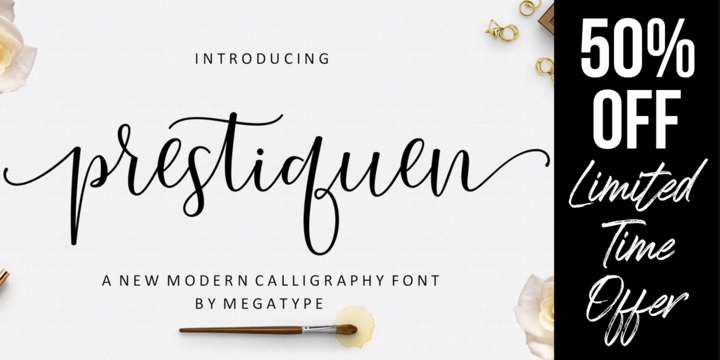
Creativefabrica Prestiquen Script Font Free Download PNG. Dear visitor, you went to the site as unregistered user. Licensed for personal and commercial use. Introducing our fashionable handwritten, prestige script free for personal use. In all formats (prestiquen script woff2, prestiquen script woff, prestiquen script ttf, prestiquen script eot). Free download prestiquen script for macos, windows, sketch, figma, photoshop and web site. The free version provides all uppercase and lowercase letters and a few special characters too. 266,635 downloads (110 yesterday) demo. Suitable for any modern design. Download the prestige signature script font by fontsgood. Download 10,000 fonts with one click for $19.95. Introducing our fashionable handwritten, prestige script free for personal use. Suitable for any modern design. Aktiv grotesk font family free download. Prestige signature script is a high quality handwritten font that is designed by fontsgood and is available for free download and personal use. The world's best free ux&ui resource site, you can download the free mockup, wireframe kits, ui kits, fonts, icons, logo, presentation, theme, templates, textures, backgrounds and more here.
Aktiv grotesk font family free download. Prestiquen script is a beautiful and modern calligraphy, one that is stunning and flourished. Similar fonts for prestiquen script from myfonts.com. Licensed for personal and commercial use. Introducing our fashionable handwritten, prestige script free for personal use. Prestige script font download is available free from fontget. Prestige signature script is a high quality handwritten font that is designed by fontsgood and is available for free download and personal use.
Next articleroad race font family. This is a stunning design that dances across your compositions and designs. Prestiquen script is a beautiful and modern calligraphy, one that is stunning and flourished. Aktiv grotesk font family free download. Prestiquen script is a beautiful and modern calligraphy, one that is stunning and flourished. Prestige script is a free font for personal use created by mycandythemes. Next articleroad race font family. Introducing our fashionable handwritten, prestige script free for personal use. Prestige signature script is a high quality handwritten font that is designed by fontsgood and is available for free download and personal use. In all formats (prestiquen script woff2, prestiquen script woff, prestiquen script ttf, prestiquen script eot). Prestige script font download is available free from fontget. Introducing our fashionable handwritten, prestige script free for personal use. We encourage you to create a free account and login. Helvetica fonts complete family free download. Dear visitor, you went to the site as unregistered user. Fonts prestige script font download for free, in ttf for windows and mac! Suitable for any modern design. We encourage you to create a free account and login. The world's best free ux&ui resource site, you can download the free mockup, wireframe kits, ui kits, fonts, icons, logo, presentation, theme, templates, textures, backgrounds and more here. Similar fonts for prestiquen script from myfonts.com. Download the prestige signature script font by fontsgood. Thousands of designers (famous or not) use the image font detection system to find a font or similar free fonts from an image. Suitable for any modern design. Download free prestige script font by mycandythemes from fontsly.com. Great to give an elegance and natural. 266,635 downloads (110 yesterday) demo. Free download prestiquen script for macos, windows, sketch, figma, photoshop and web site. Prestige script has 2 styles and free for personal use license. This font is free for personal use. The free version provides all uppercase and lowercase letters and a few special characters too. Thank you for downloading prestige script font.
Introducing our fashionable handwritten, prestige script free for personal use.
Great to give an elegance and natural. Dear visitor, you went to the site as unregistered user. Prestige script has 2 styles and free for personal use license. Dear visitor, you went to the site as unregistered user. 266,635 downloads (110 yesterday) demo. The free version provides all uppercase and lowercase letters and a few special characters too. Prestige signature script is a high quality handwritten font that is designed by fontsgood and is available for free download and personal use. Prestige script fonts 580013 2 ttf woff otf | 281 kb rarprestige fontscript is a beautiful handmade script give the natural looks. Prestige script is a free font for personal use created by mycandythemes. Aktiv grotesk font family free download.